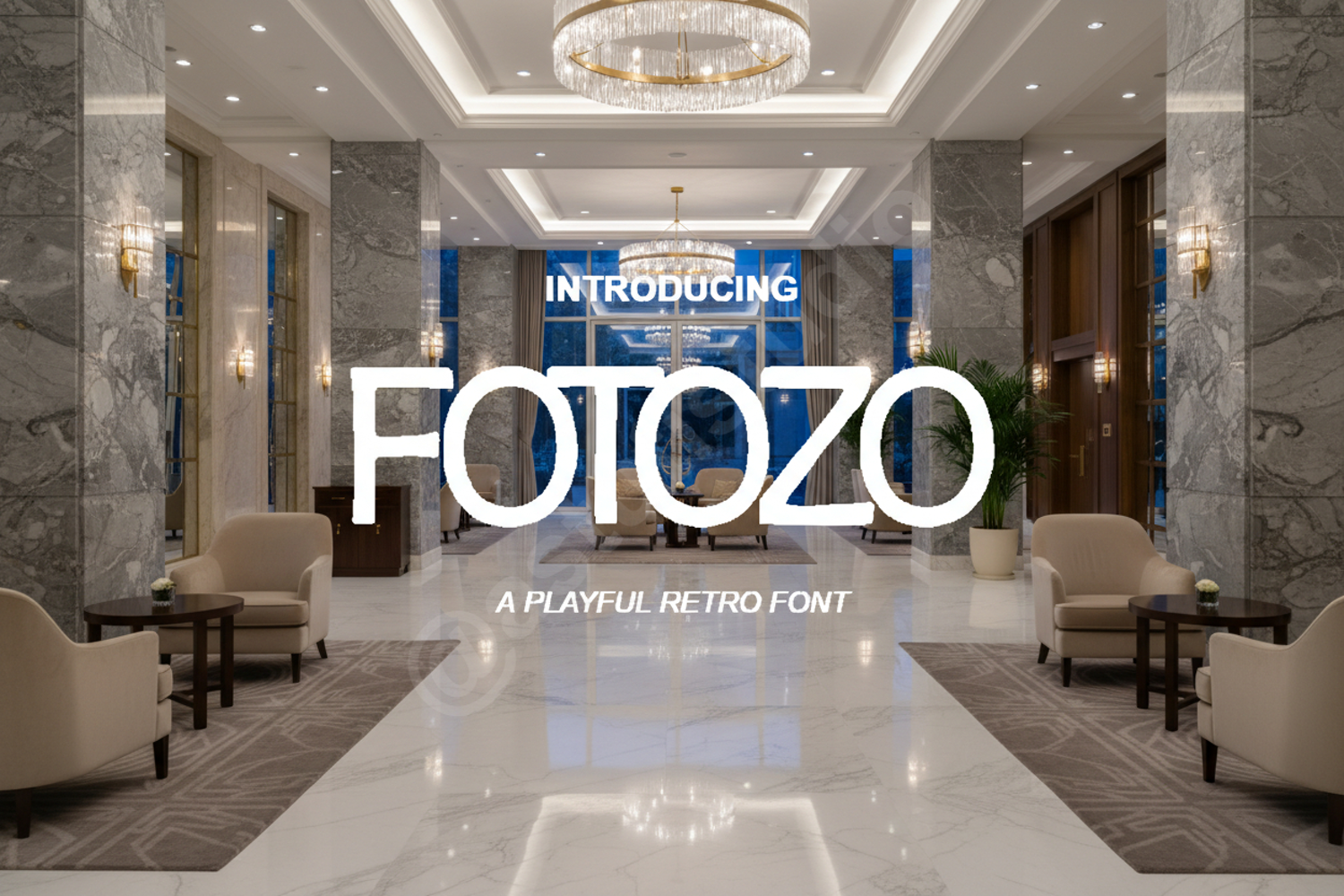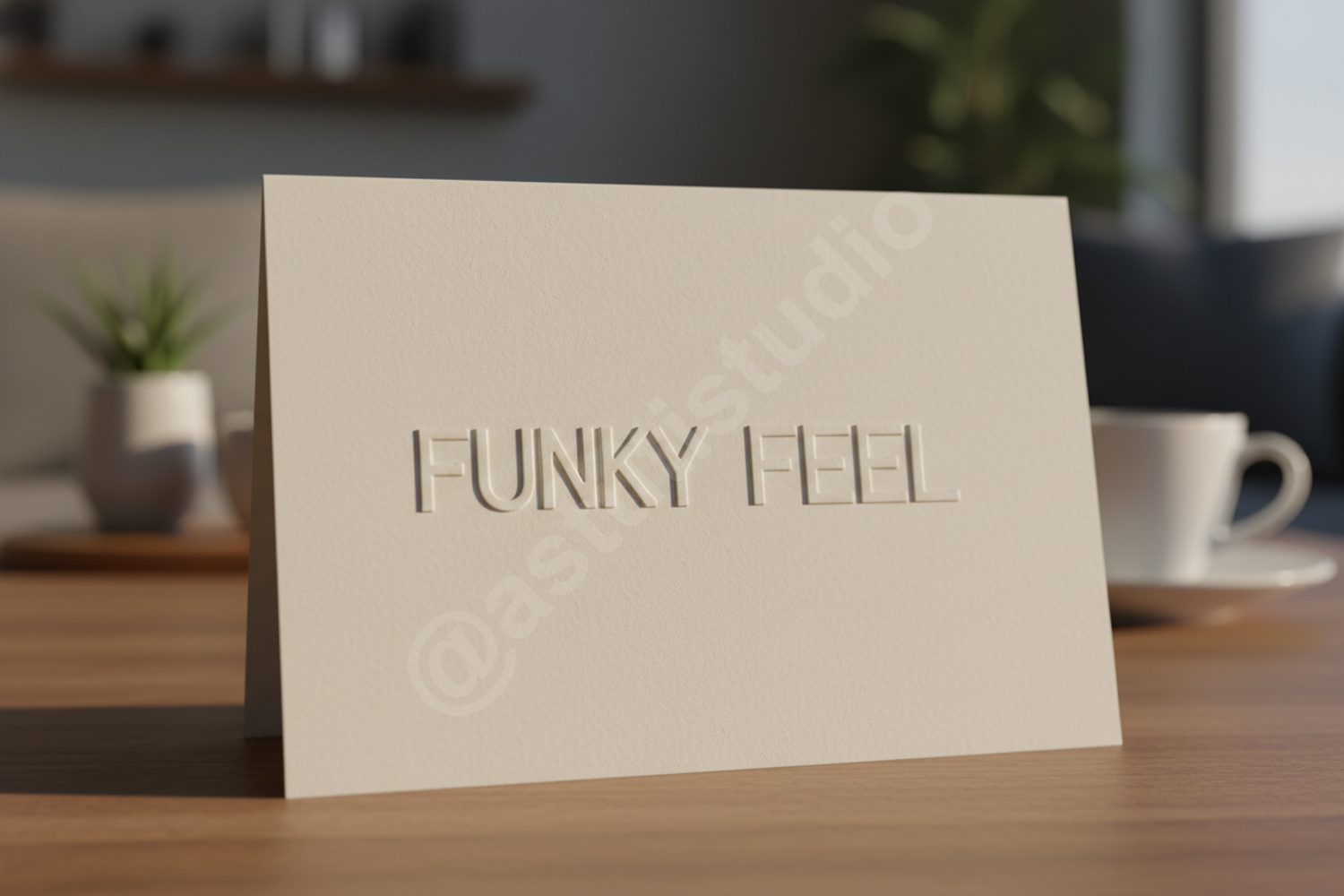
Fotozo - Premium Modern Geometric Sans Serif
Fotozo
Fotozo is a meticulously crafted sans serif font that blends geometric precision with modern elegance. Designed for high-end projects, it offers exceptional legibility and a clean aesthetic that commands attention without being overbearing. Whether you are working on a corporate identity or a creative editorial piece, Fotozo provides the professional touch your design deserves.
- Branding and Corporate Identity: Create a strong, reliable brand voice with clean lines.
- Editorial Design: Perfect for high-end magazines, books, and digital articles.
- Web and App Interface: High legibility ensures a user-friendly digital experience.
- Social Media Graphics: Stand out in the feed with crisp, modern typography.
- Advertising and Large Scale Print: Maintains clarity and impact even in large formats like billboards.